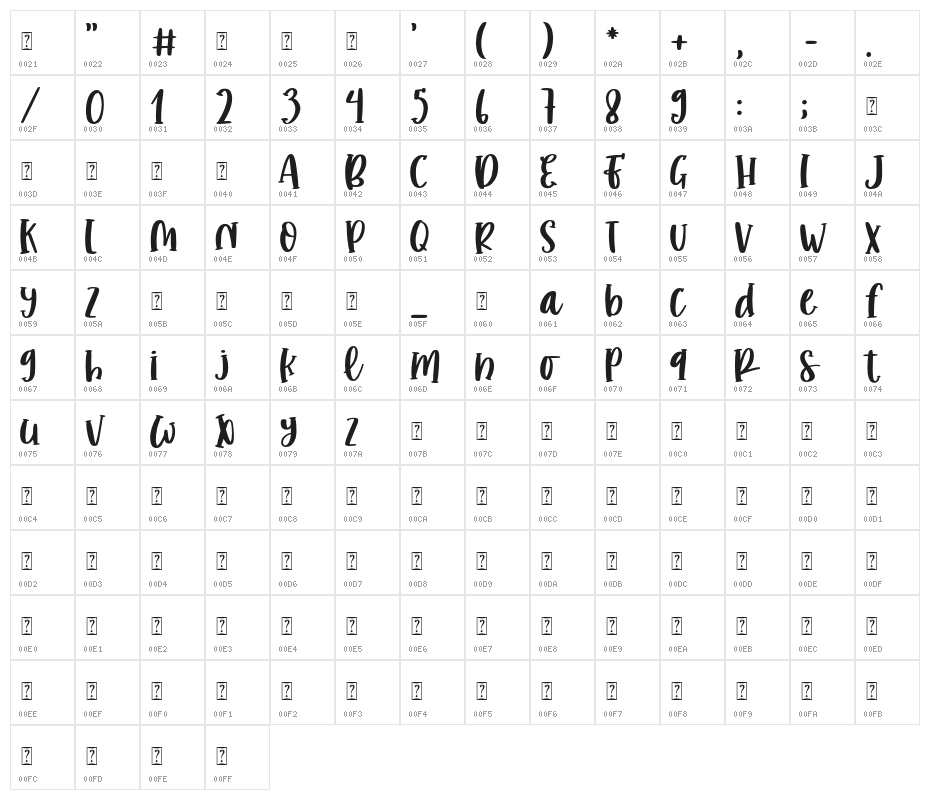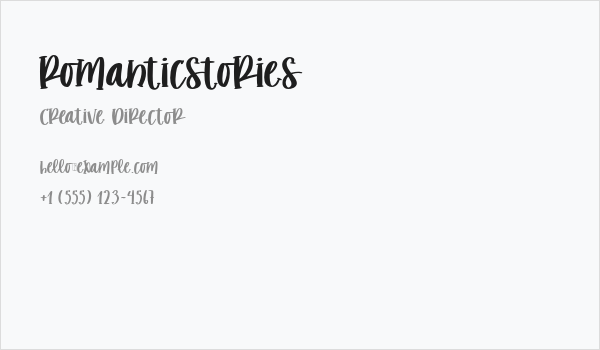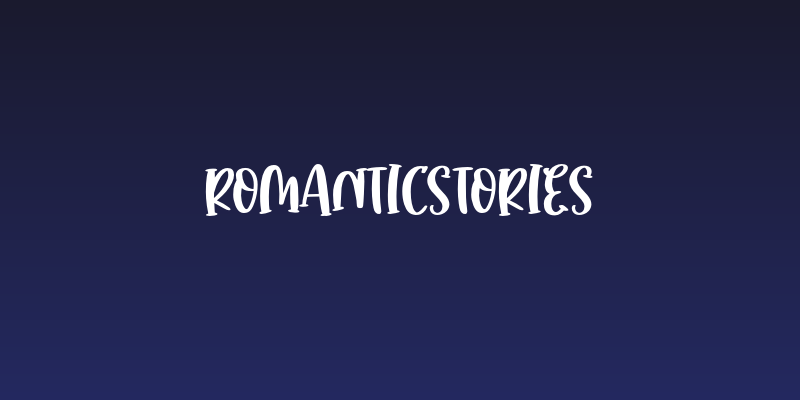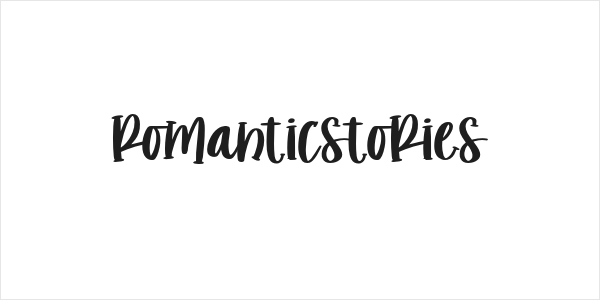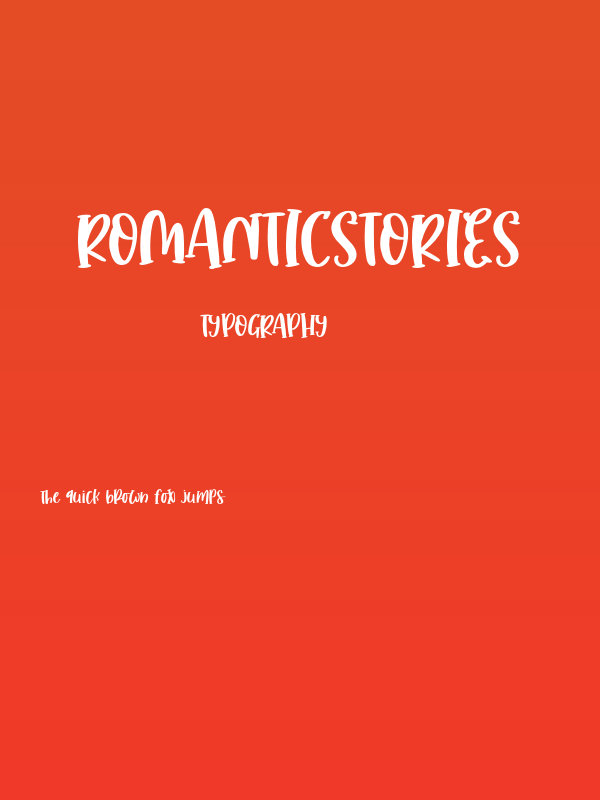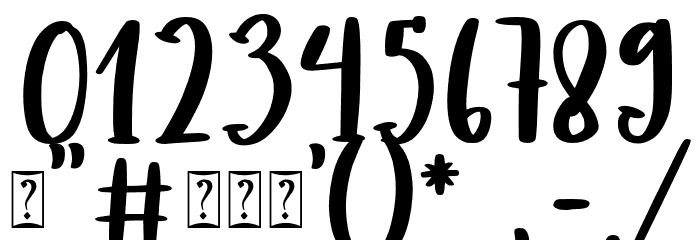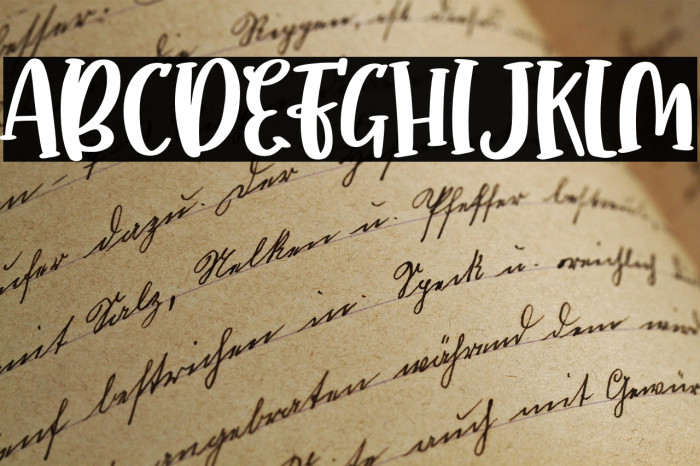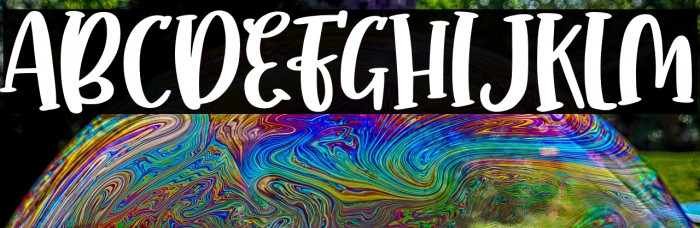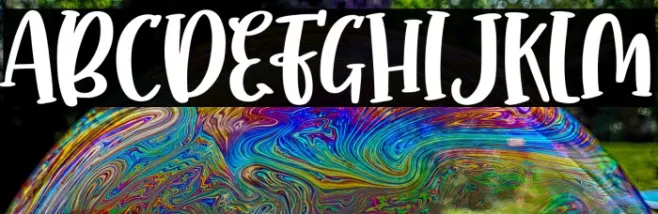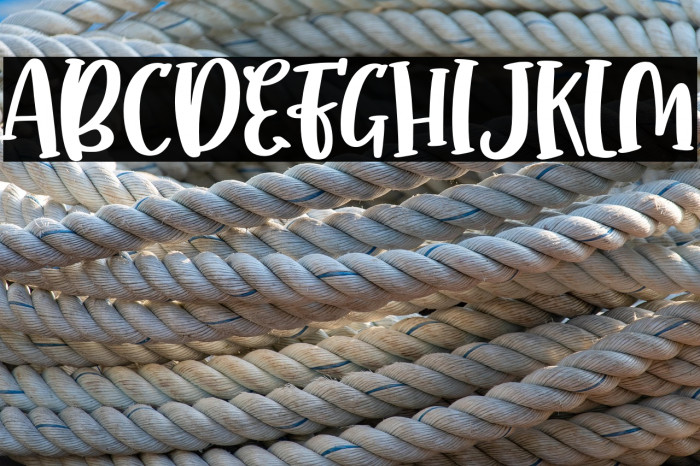
romanticstories Font
romanticstories Description
This font features a playful and bold handwritten style, characterized by its thick, flowing strokes and slightly irregular letterforms. The uppercase letters are tall and commanding, while the lowercase letters maintain a consistent height, adding to the font's cohesive appearance. The numbers and special characters are equally expressive, with a whimsical touch that enhances the overall aesthetic. The font's energetic and lively nature makes it suitable for creative and informal designs, providing a sense of warmth and personality.
| Proposed Projects | Ideal for greeting cards, invitations, posters, and branding projects that require a personal touch. |